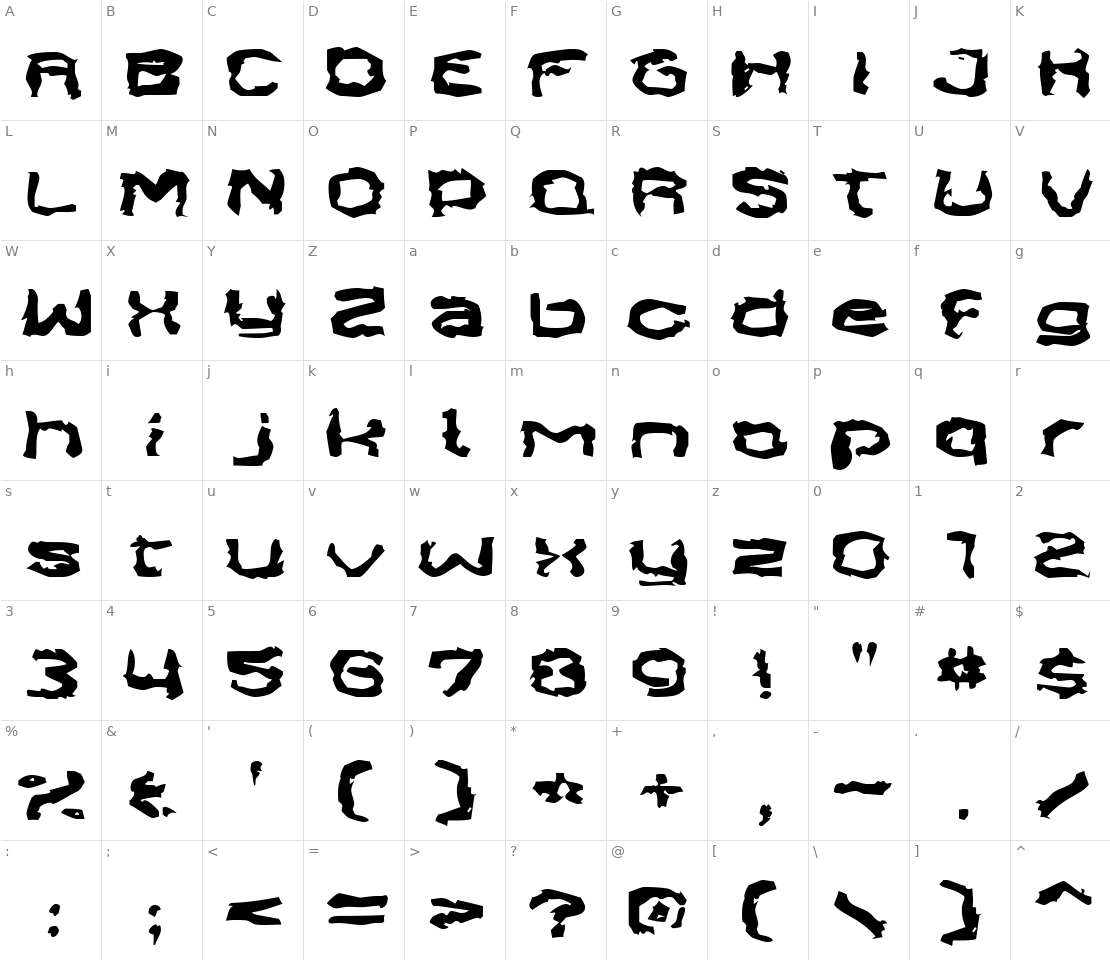
Send Cash
Send Cash is a heavy, roughed-up display face from Ray Larabie with letterforms that look like they were printed on cheap paper and photocopied a few too many times. The bold weight and grungy, irregular edges give it a raw, confrontational energy that works for punk flyers, gritty editorial headers, and anything that needs to feel urgent and slightly threatening. Keep it big and keep it short.